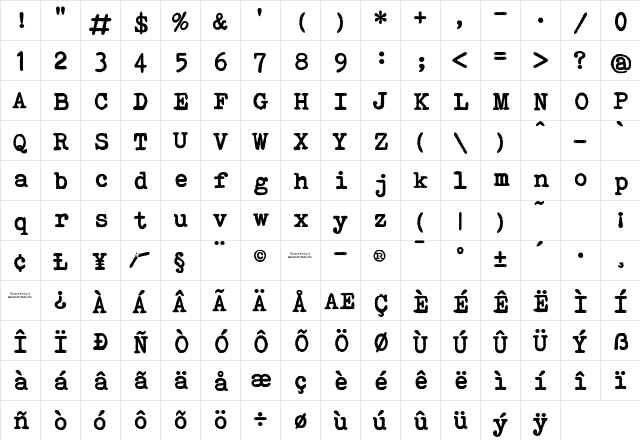
Victoria Typewriter Normal
| Foundry | Lukas Krakora |
| Designer | Lukas Krakora |
Design Context for Victoria Typewriter Typeface
Victoria Typewriter uses fixed-width spacing throughout, giving it the structured, systematic character associated with coding environments and technical documentation.
A natural fit for code editors, technical documentation, developer-focused branding, and terminal-inspired UI.